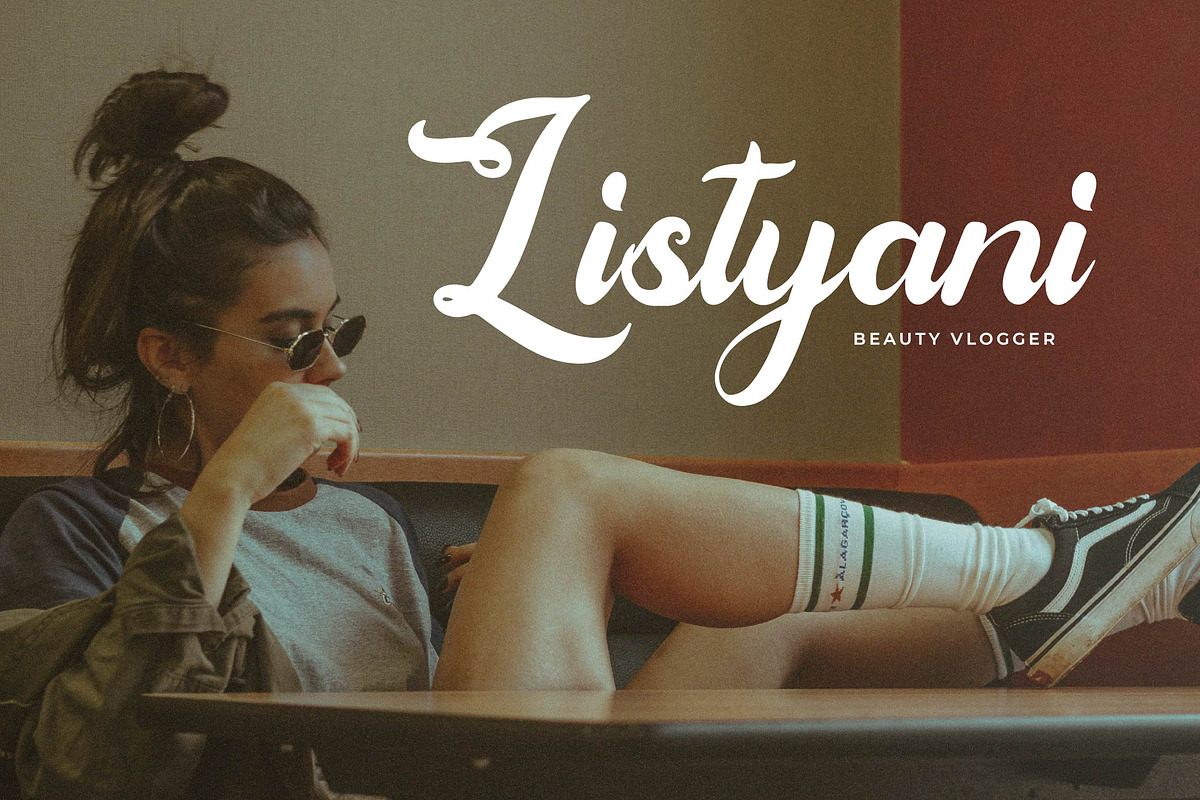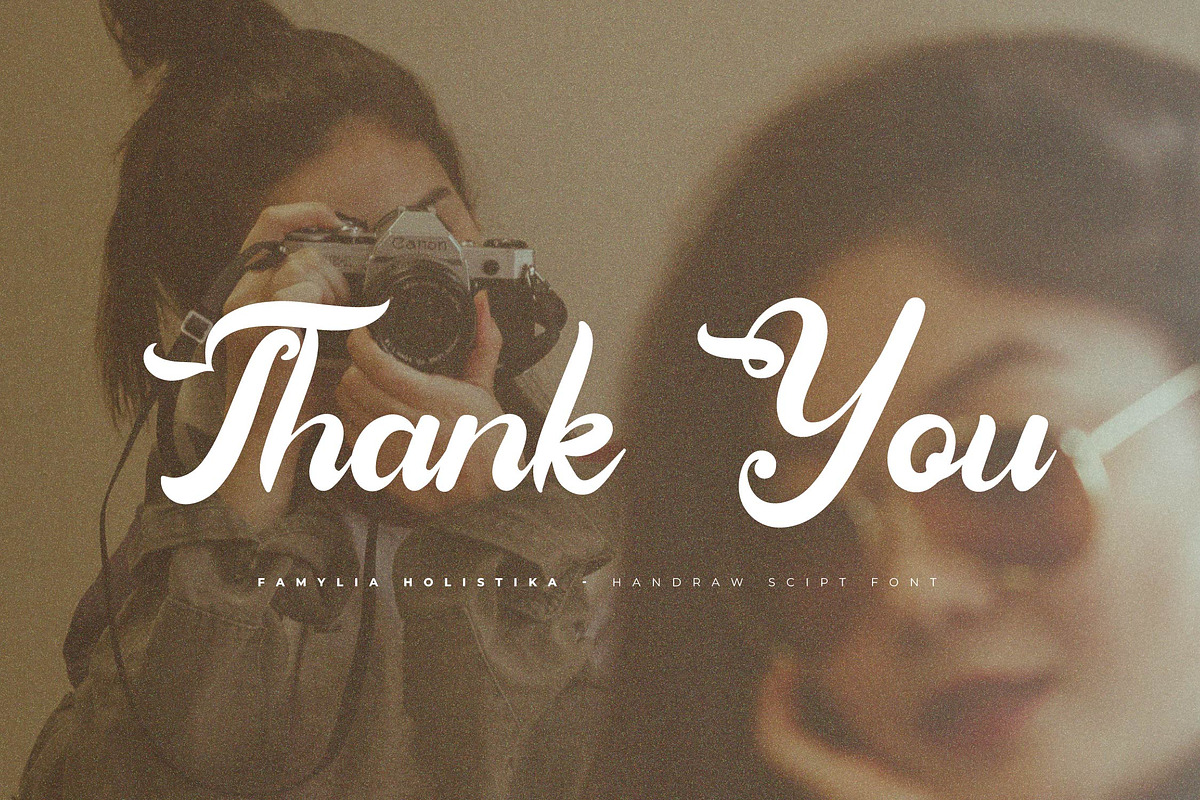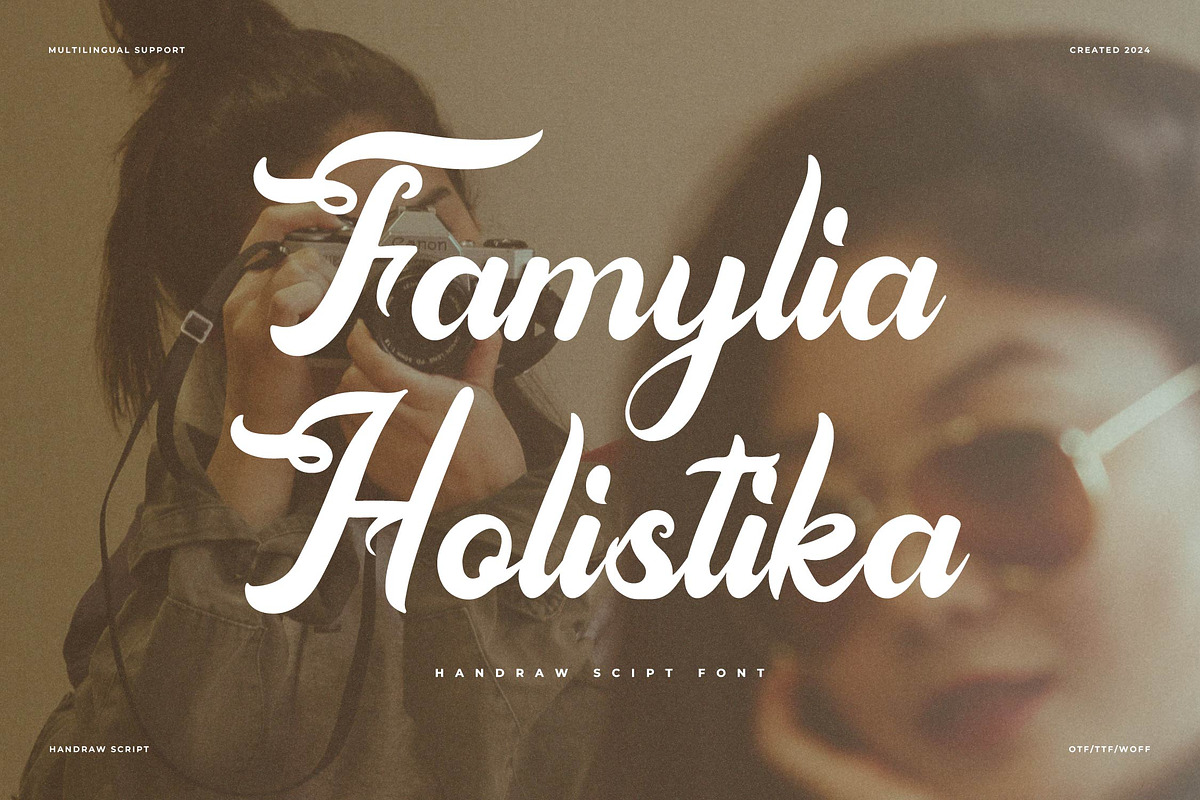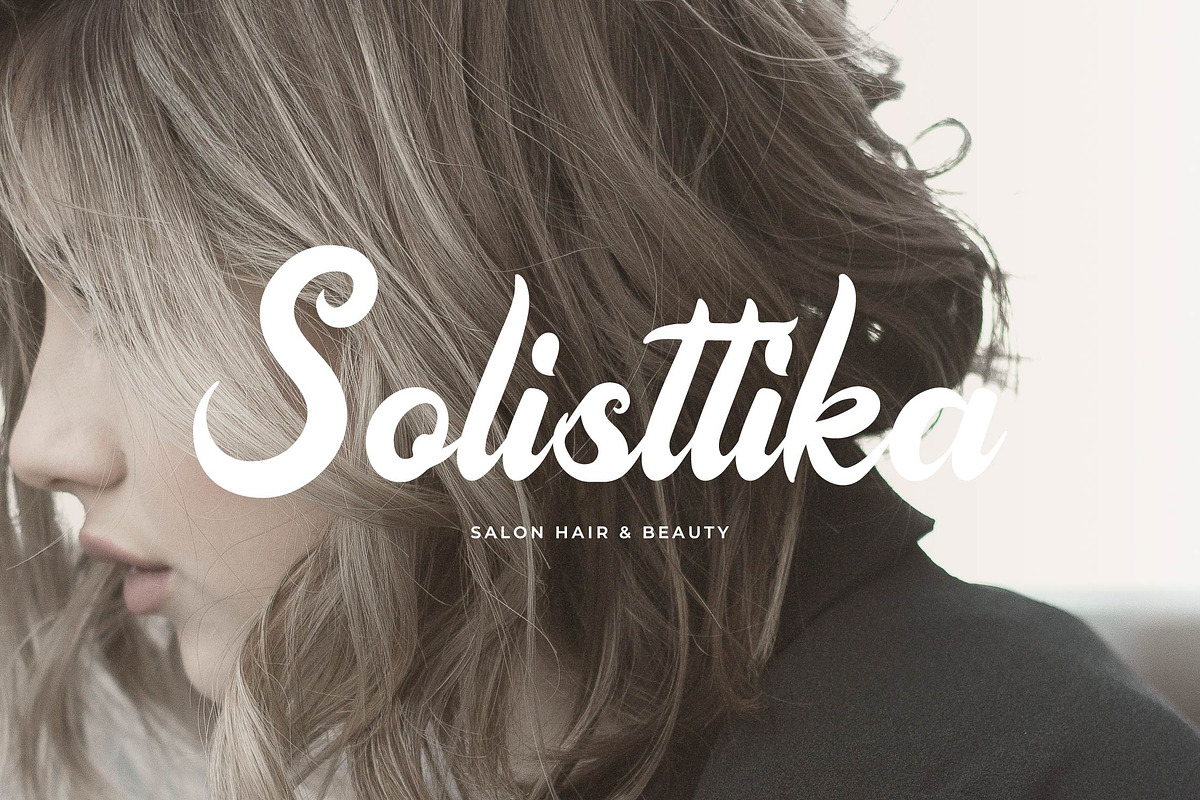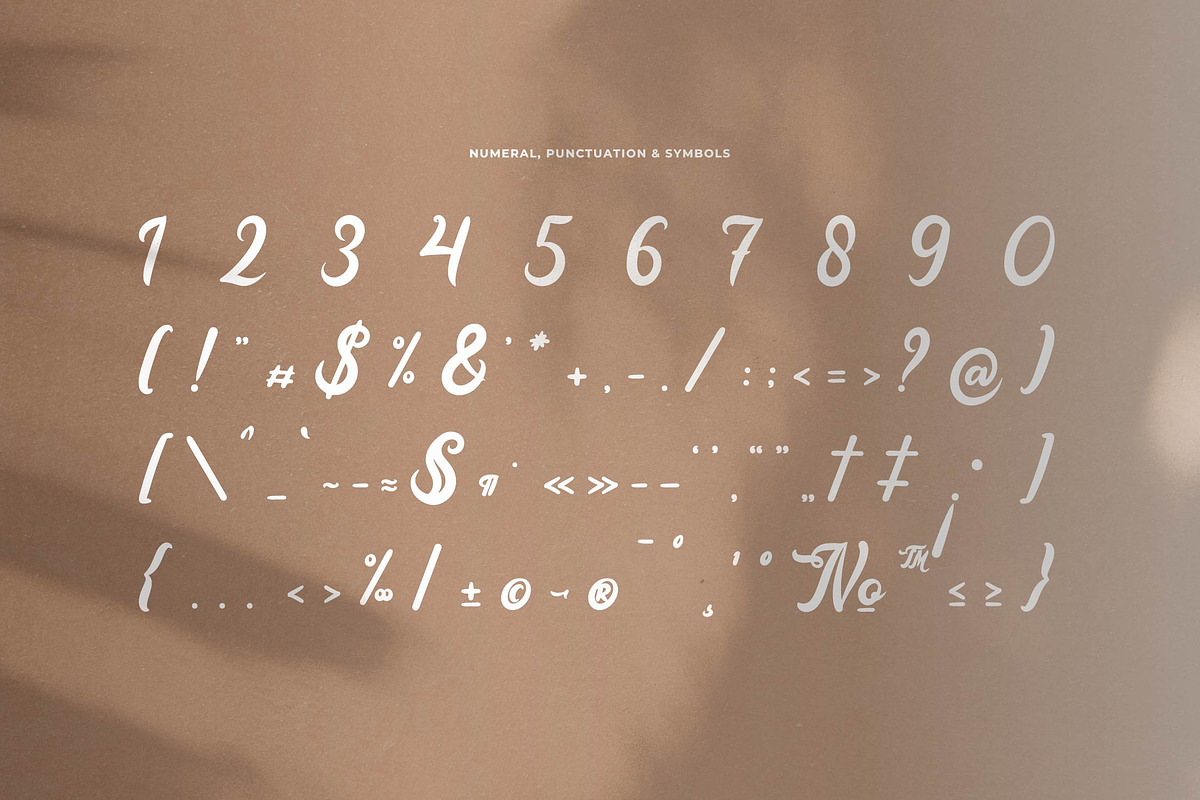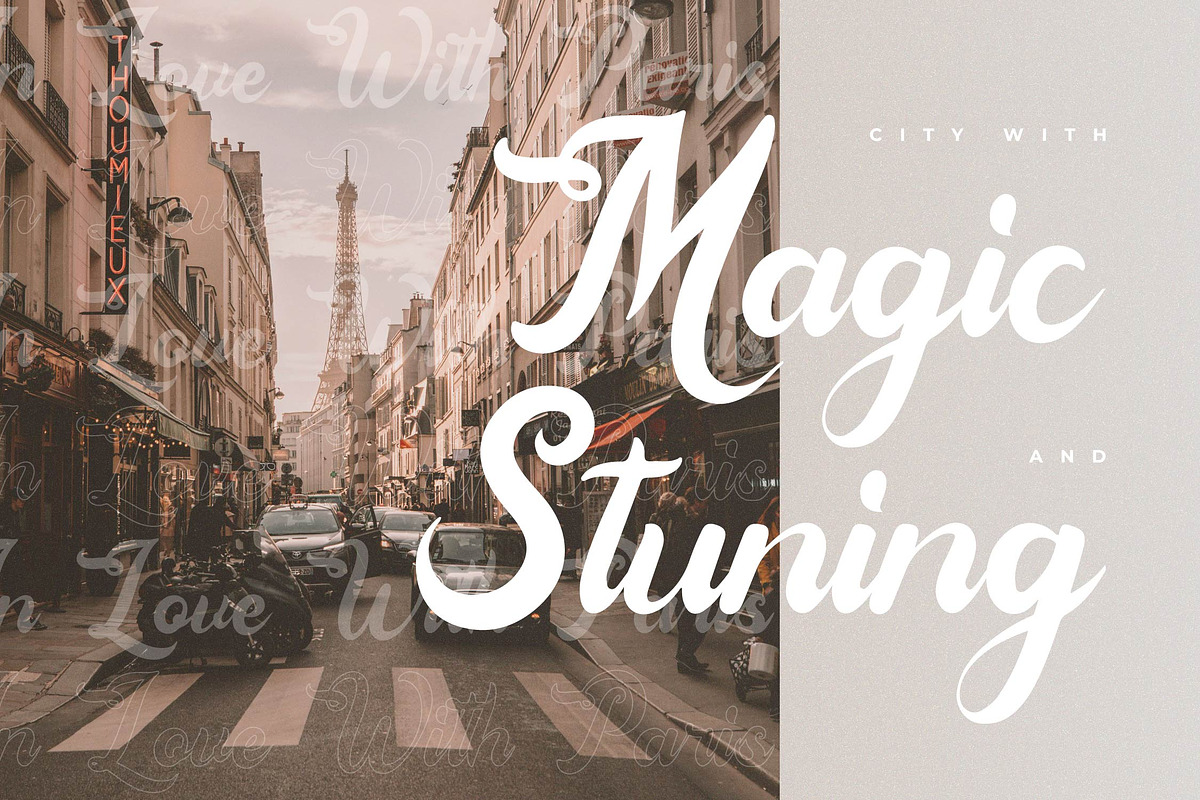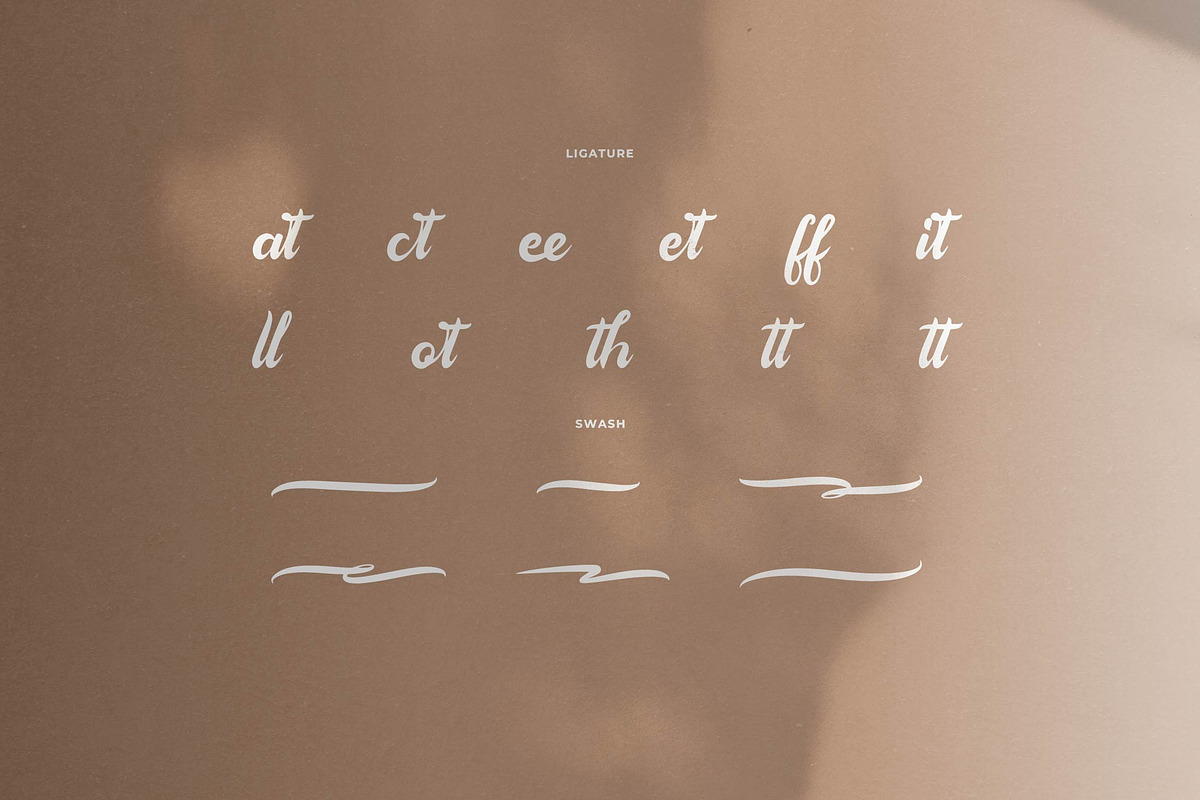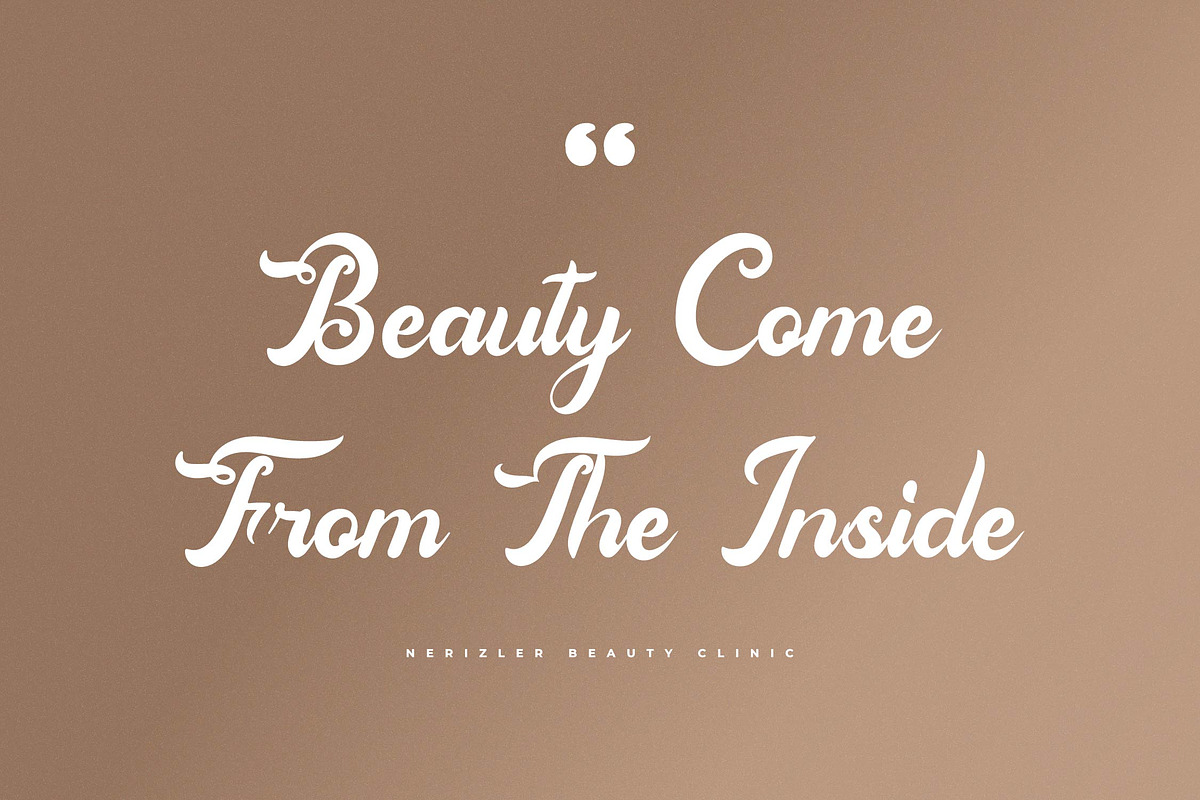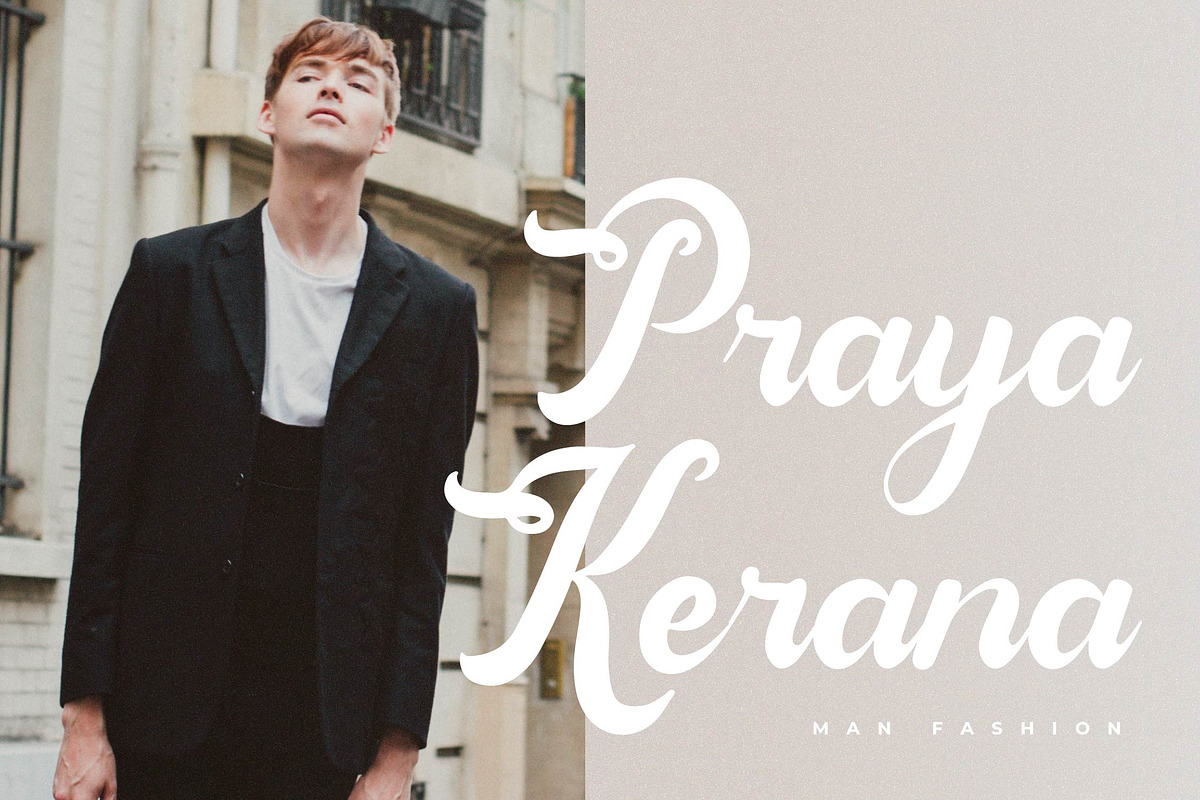
Famylia Holistika Hand Drawn Script
Famylia Holistika Hand Drawn Script, from Denustudios, suitable for any projects such as: logos, branding projects, homeware designs, product packaging, mugs, quotes, posters, shopping bags, t-shirts, book covers, name card, invitation cards, greeting cards, label, photography, watermark, special events, and all your other lovely projects that need a Hand Drawn Script taste.